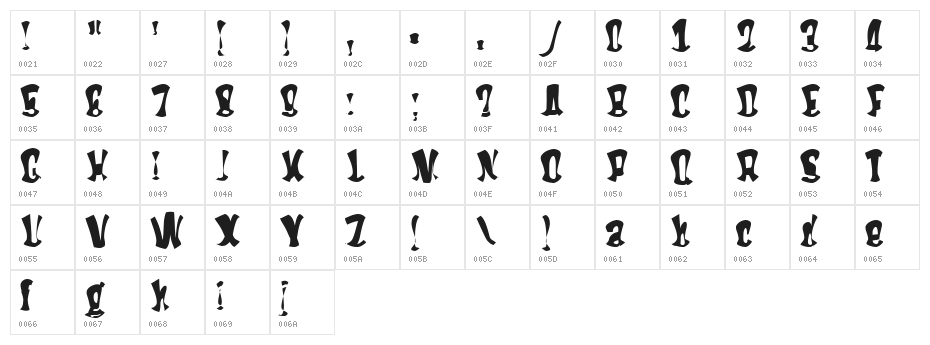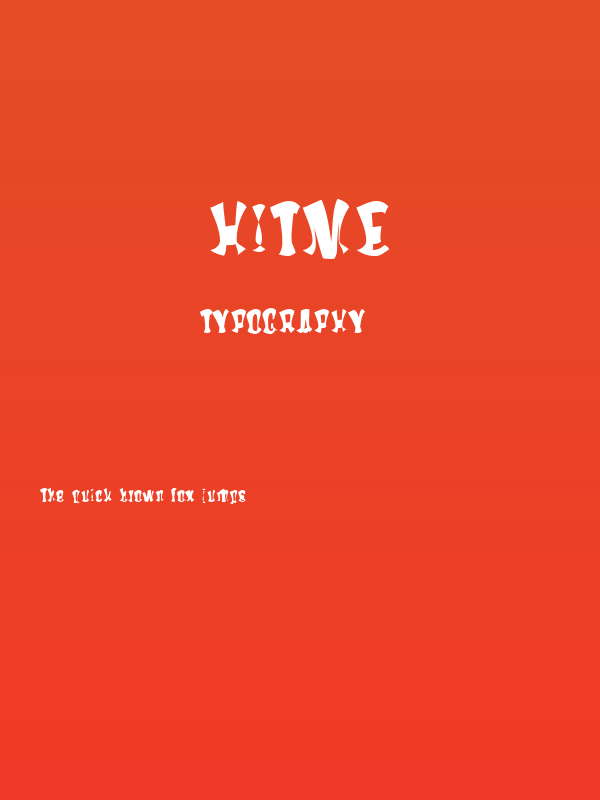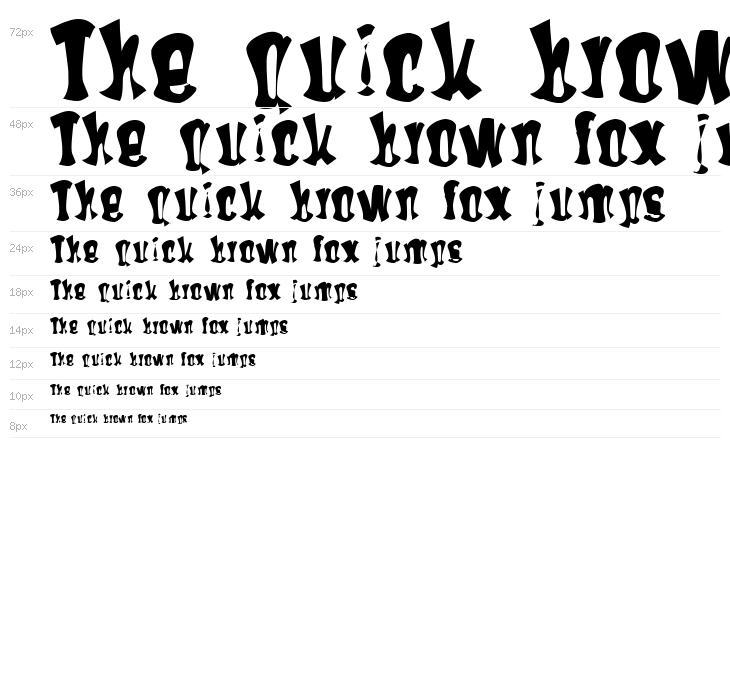
HitMe Font
HitMe Description
This font features a bold and dynamic design with exaggerated curves and unique character shapes. The letters have a playful, almost whimsical appearance, with varying stroke widths that create a sense of movement and energy. The uppercase and lowercase letters maintain a consistent style, while the numbers and special characters complement the overall aesthetic. The font's distinctive look makes it ideal for creative and eye-catching designs, where a touch of personality is desired.